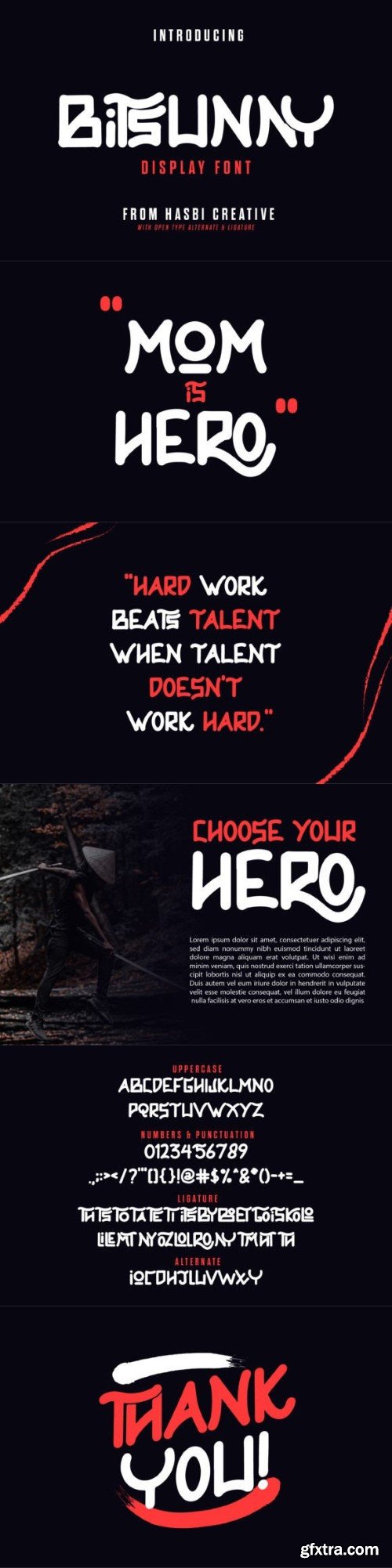
bitsunny字体
Bitsunny Display Font – a super fun and playful hand-lettered typeface. It is perfect for headings, flyers, greeting cards, product packaging, book covers, printed quotes, logotypes, apparel designs, album covers, etc. PUA encoded which means you can access all of the glyphs and swashes with ease.